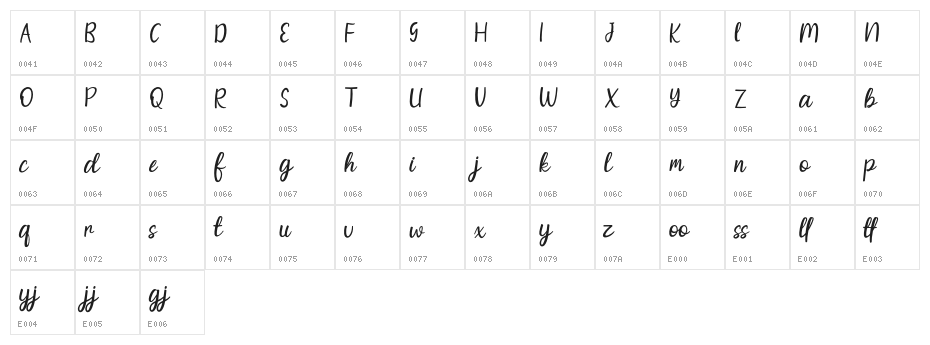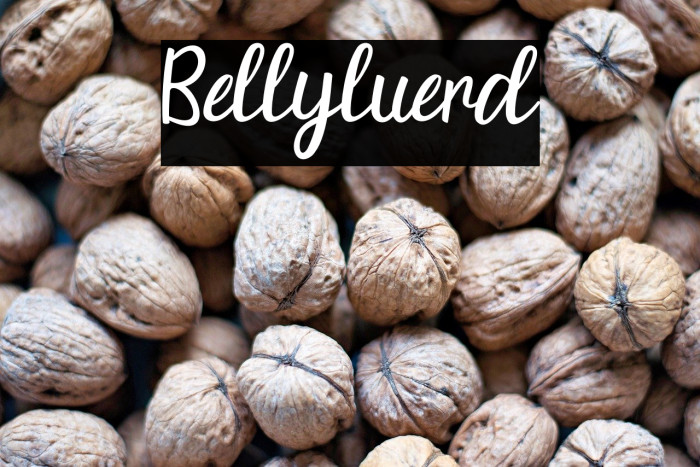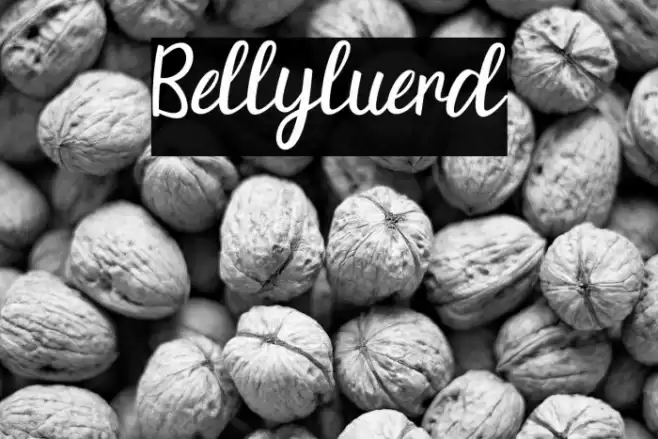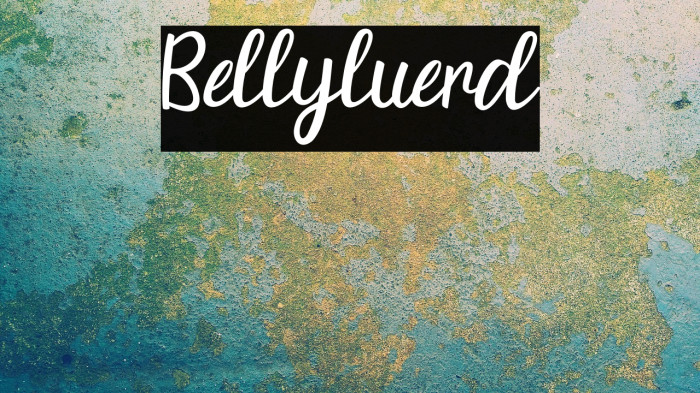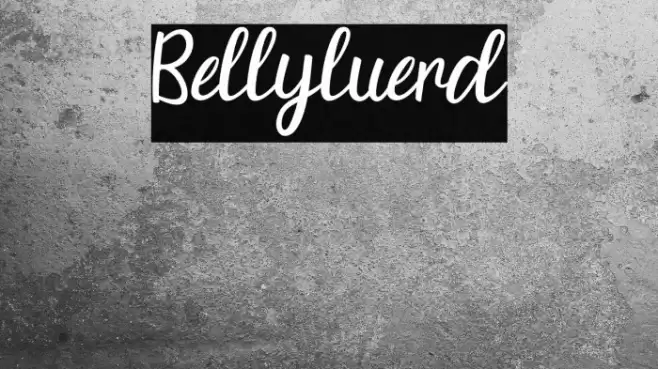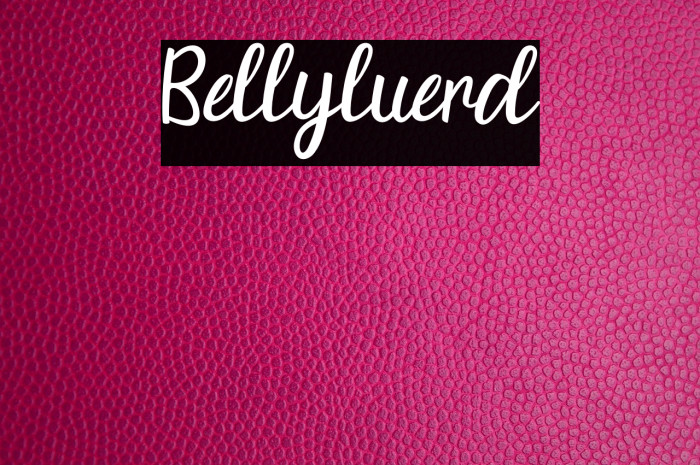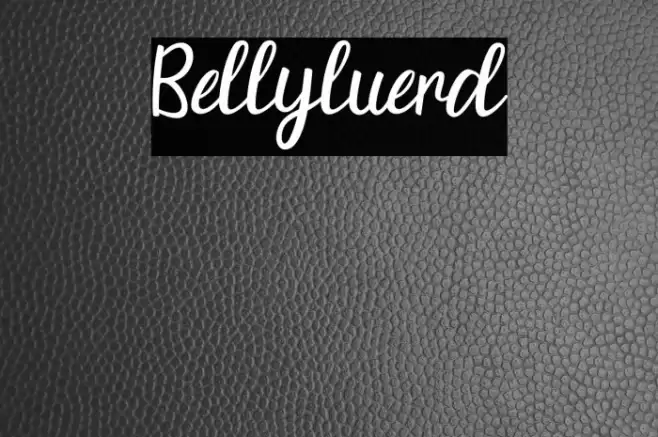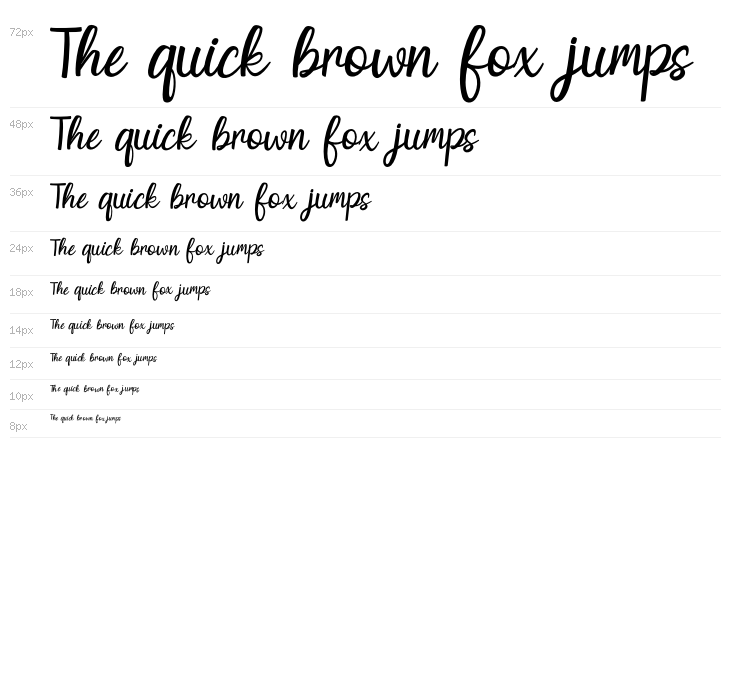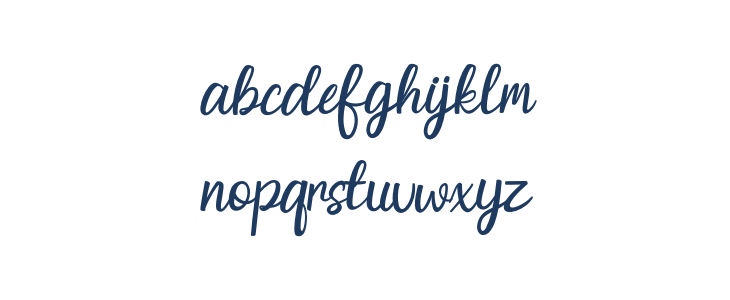
Bellyluerd Font
Bellyluerd Description
This font features a playful and flowing script style, characterized by its smooth, connected strokes and elegant curves. The uppercase letters are bold and slightly slanted, giving a sense of movement and fluidity. The lowercase letters maintain a consistent flow, with rounded edges and a slight slant that enhances readability. The font exudes a casual yet sophisticated vibe, making it suitable for a variety of creative applications. Its design is both modern and timeless, offering versatility in its use.
| Proposed Projects | Ideal for wedding invitations, greeting cards, branding, and social media graphics. |